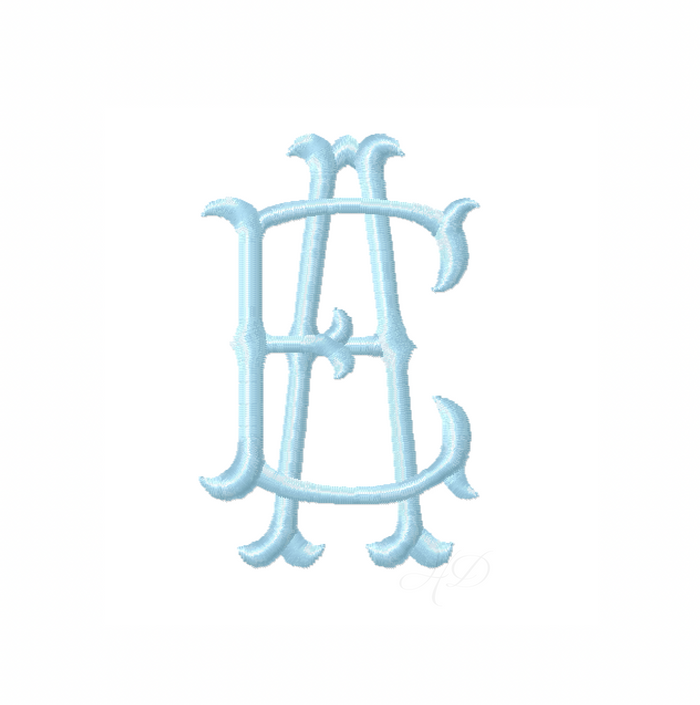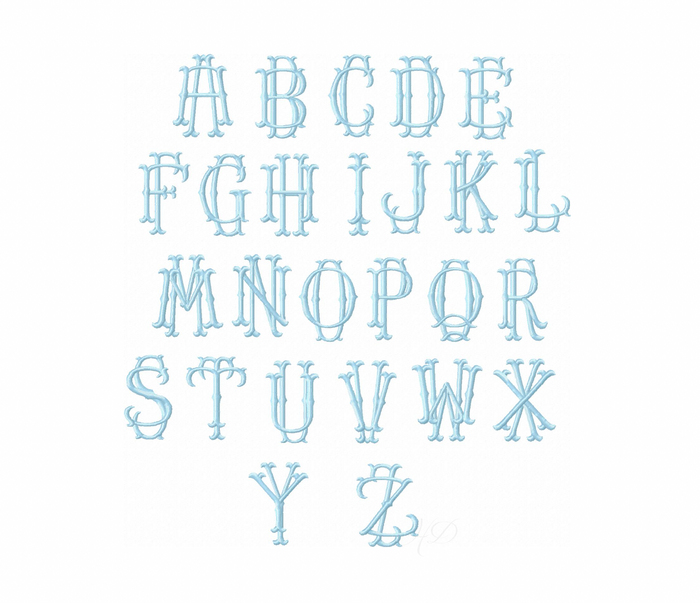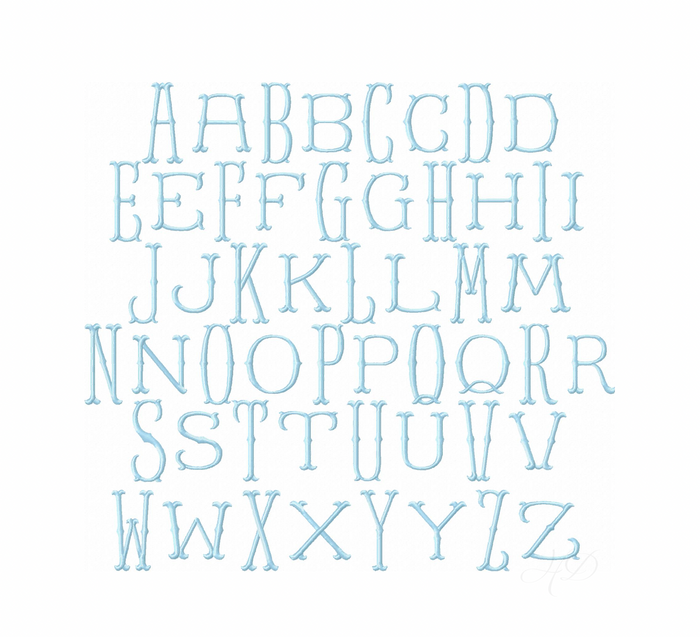
4x4 Kendall Satin Embroidery Font
Unleash your creativity with the 4x4 Kendall Satin Embroidery Font, designed specifically for crafting beautiful two-letter monograms. This font features 26 uppercase tall thin letters and 26 uppercase shorter wider letters, allowing you to mix and match easily in your embroidery software. Whether you're personalizing gifts or enhancing your home décor, this font offers unparalleled flexibility and style.